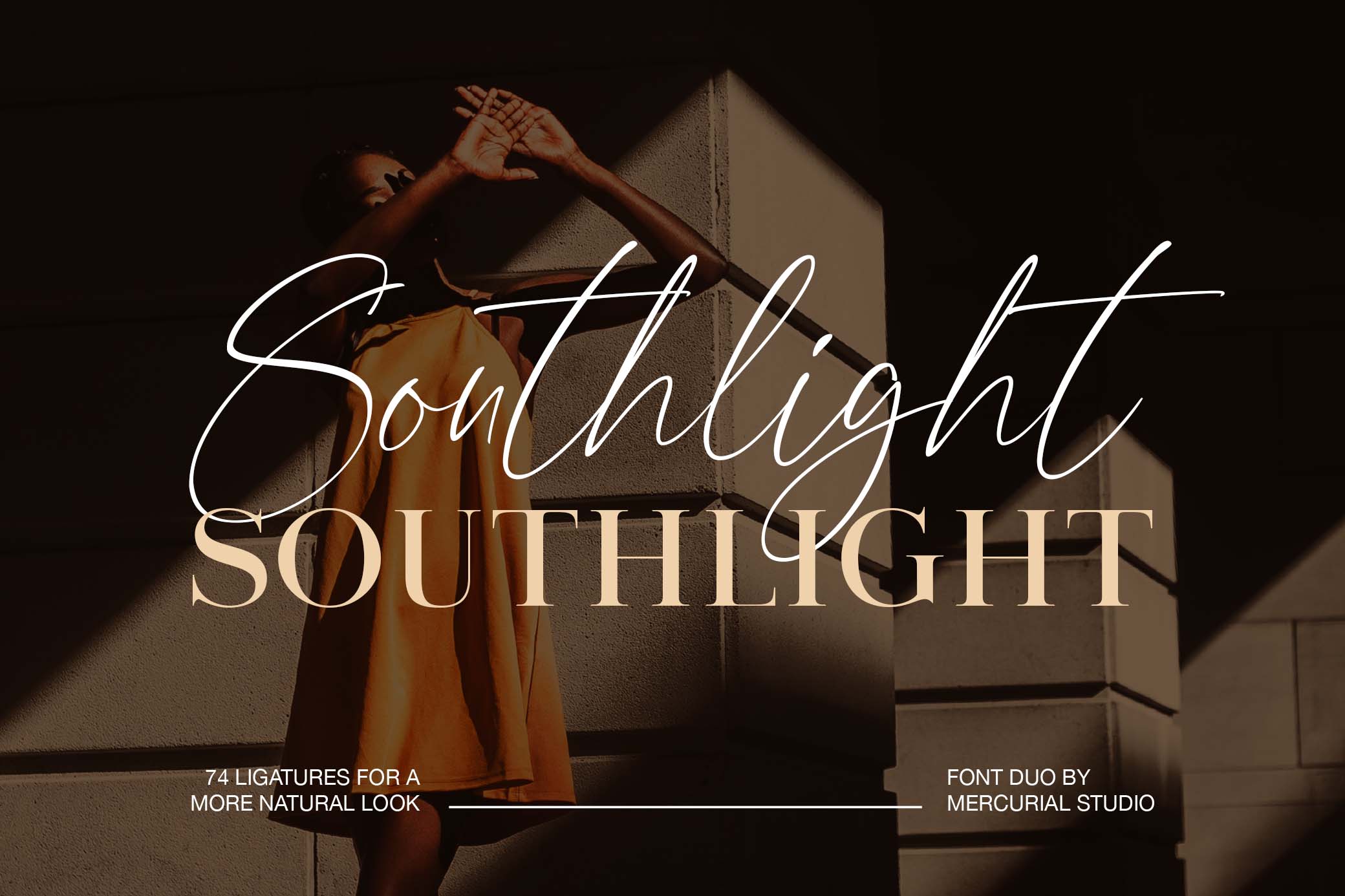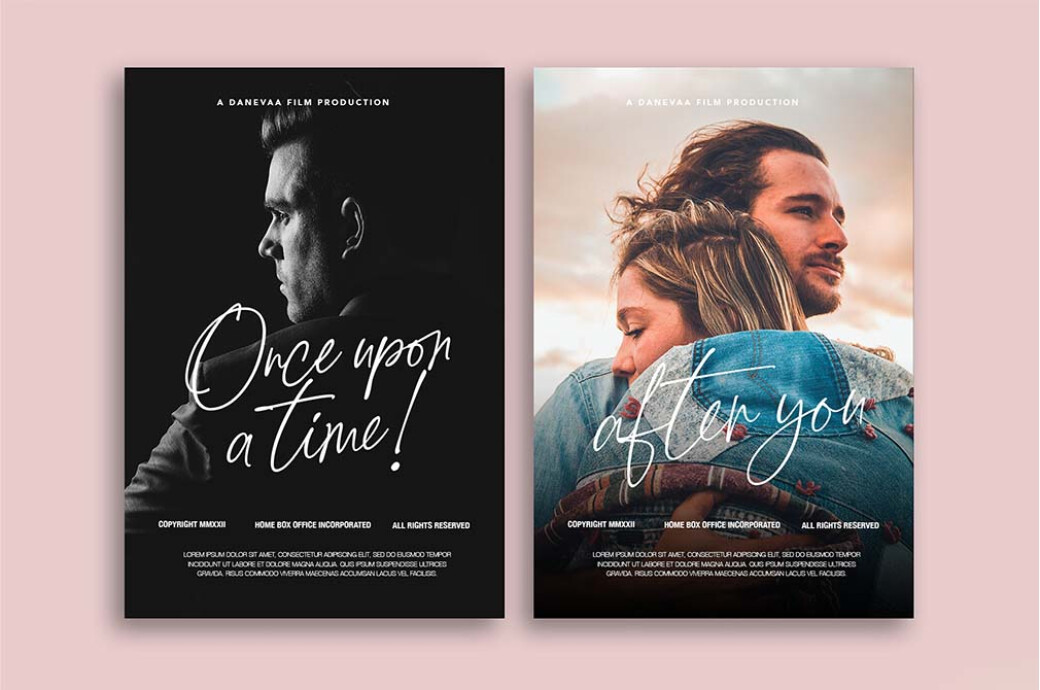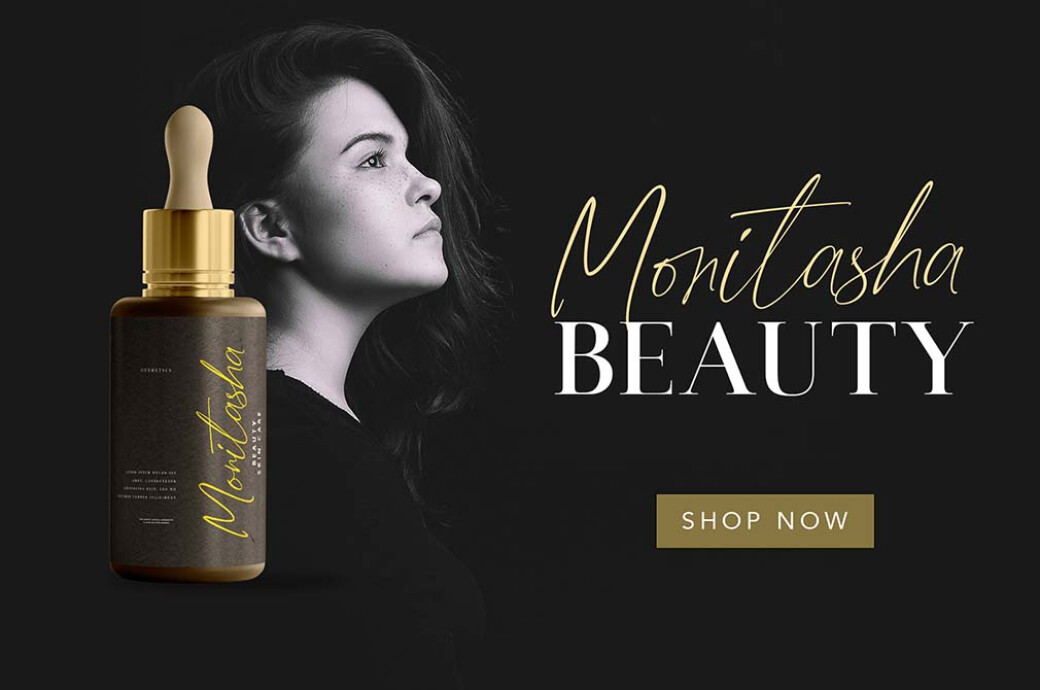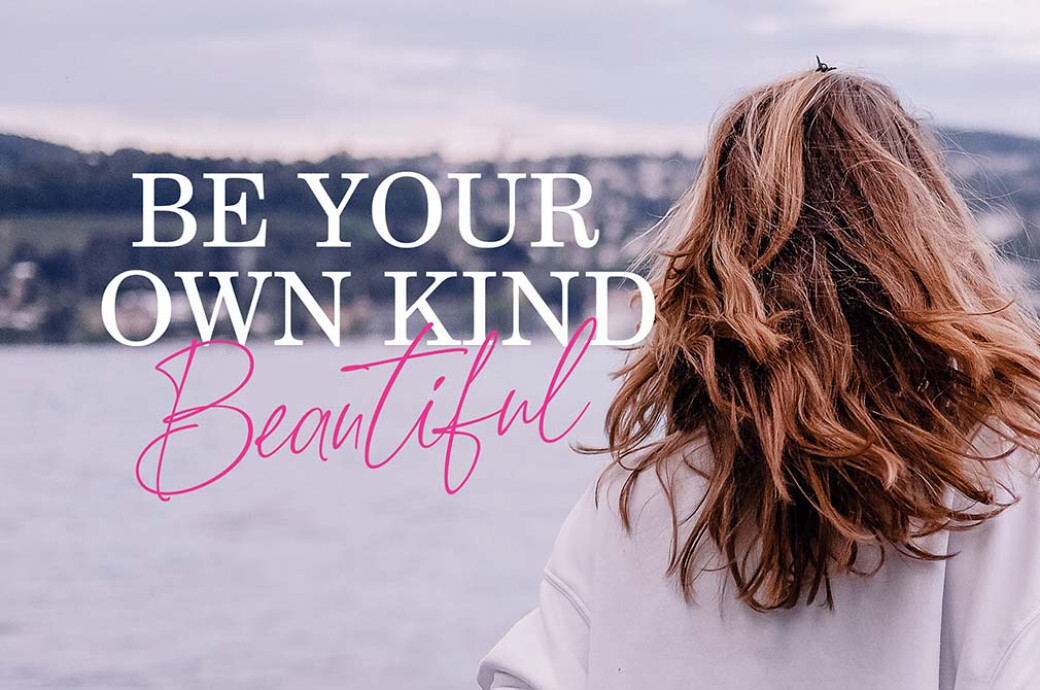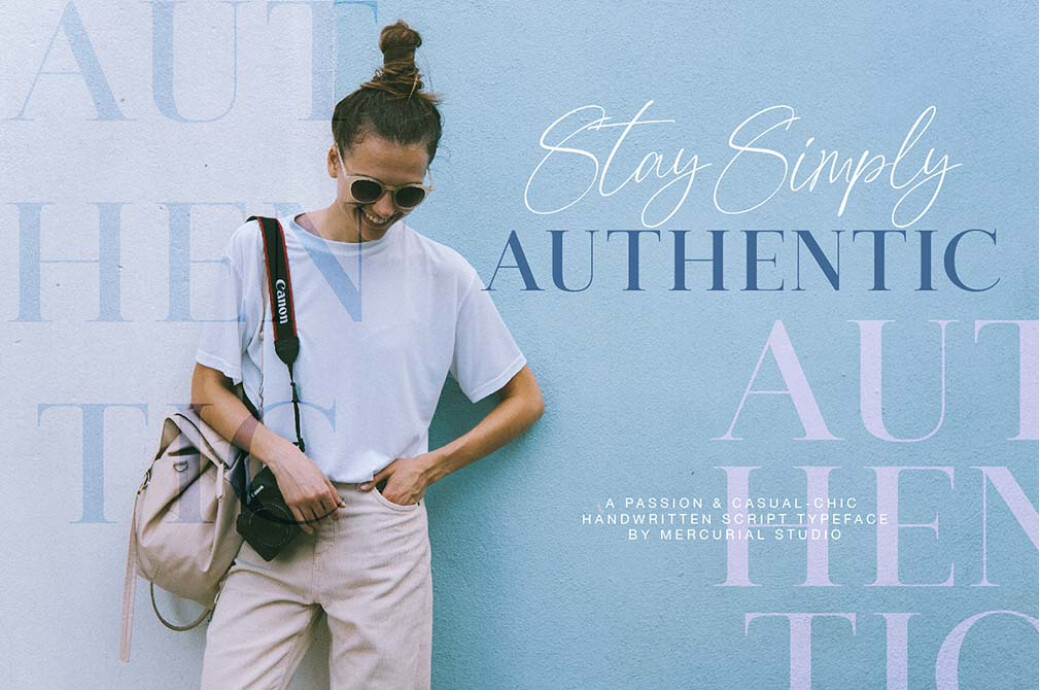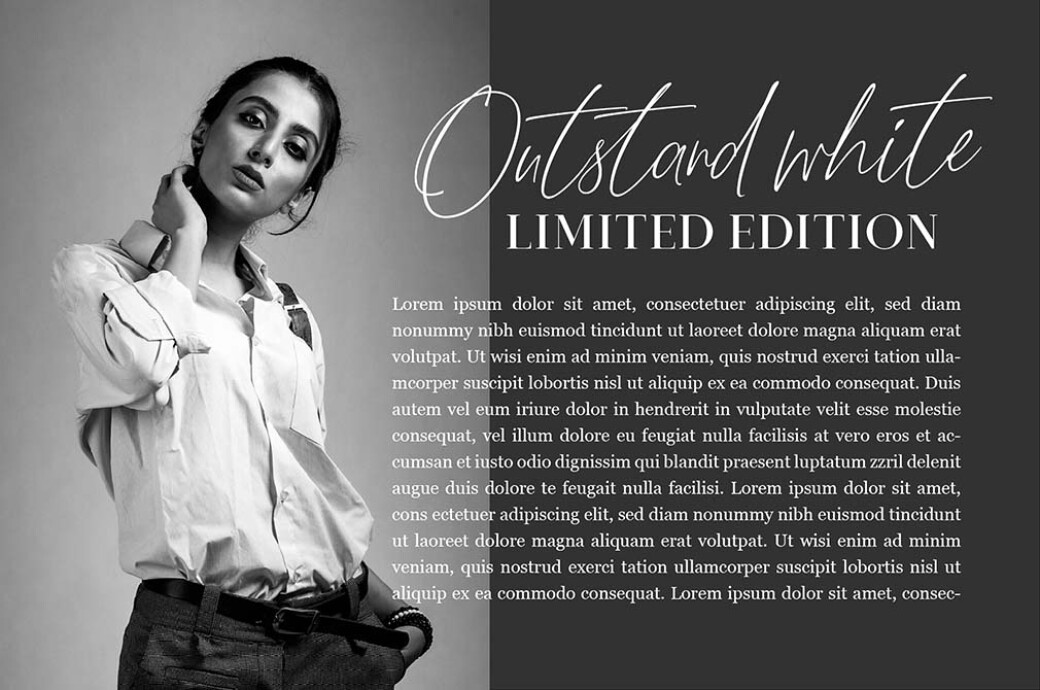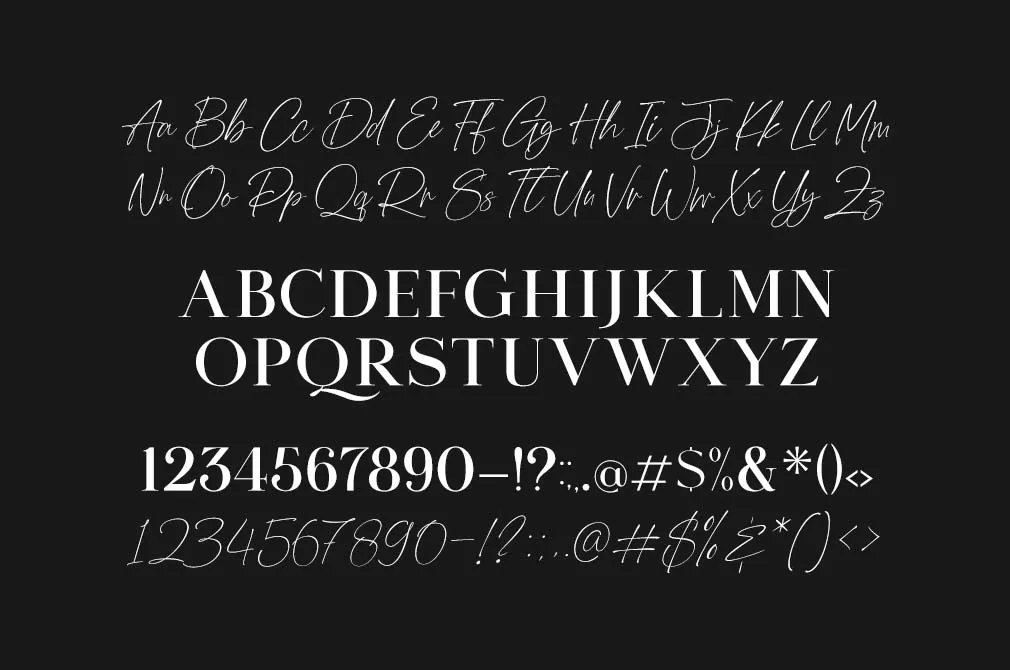
Southlight Font Duo
Chic, classy, and imbued with nostalgic 90s vibes of the retro fashion magazines — that's what the Southlight font duo is. A precious gem for every passionate font gatherer out here!In fact, Southlight is a charming quintessence of modern and old-school typography which opens the way to every designer's heart. Whatever your creative cravings and typographic preferences are, it will get you! The duo includes a geometric serif and casual-looking handwritten script. Each font contains a full set of uppercase and lowercase letters, multilingual support, symbols, numerals, and punctuation. Ligatures and alternates are available too!